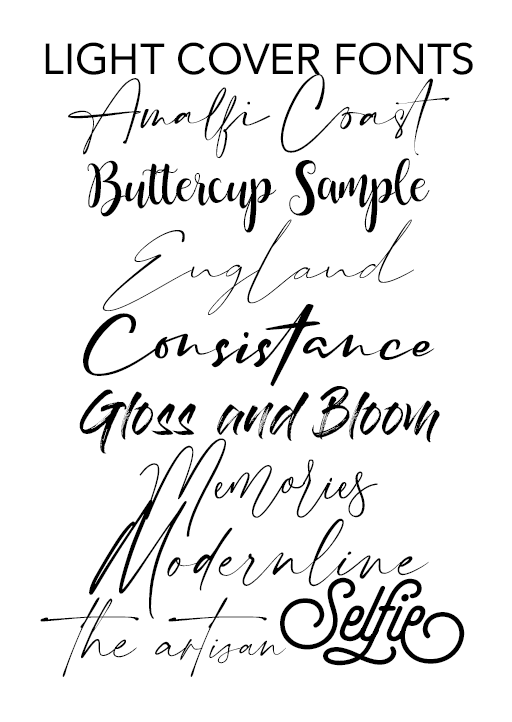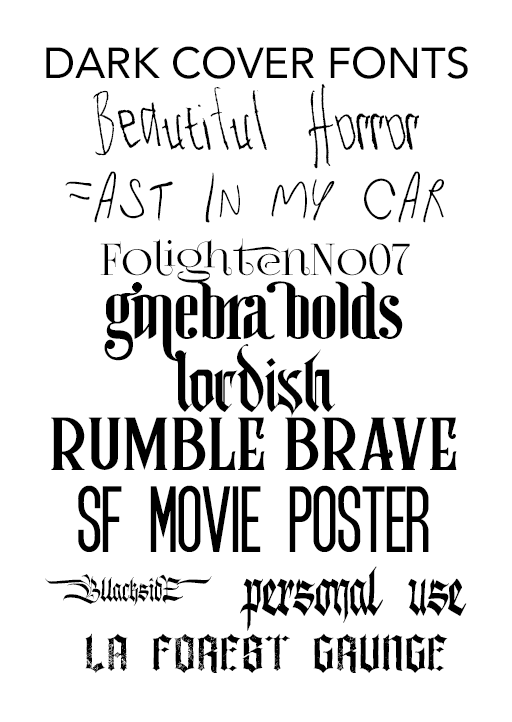
tutorial seven. FAVORITE FONTS
TUTORIAL SEVEN
favorite fonts
I also had someone who wanted me
to put some of my favorite fonts down
in a list for you guys ahhh! I know how
hard it is to find fonts that tend to fit
the graphics you're making so I'll divide
it up into sections of fandom related fonts,
dark covers, and light covers! Not all of
FANDOM RELATED:
DARK COVERS:
LIGHT COVERS: